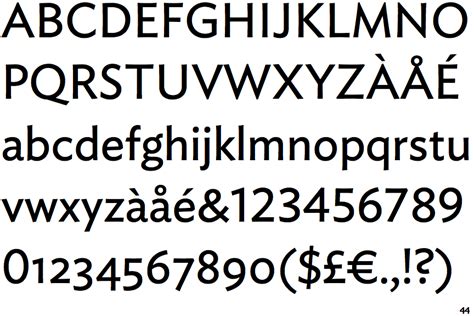
Ideal Sans Font Features Numerics Hoefler & Co.
Ideal Sans Font. Ideal sans — setting aside the easy pursuit of digital perfection, ideal.
Ideal sans — setting aside the easy pursuit of digital perfection, ideal.
Ideal sans — setting aside the easy pursuit of digital perfection, ideal. Ideal sans — setting aside the easy pursuit of digital perfection, ideal.